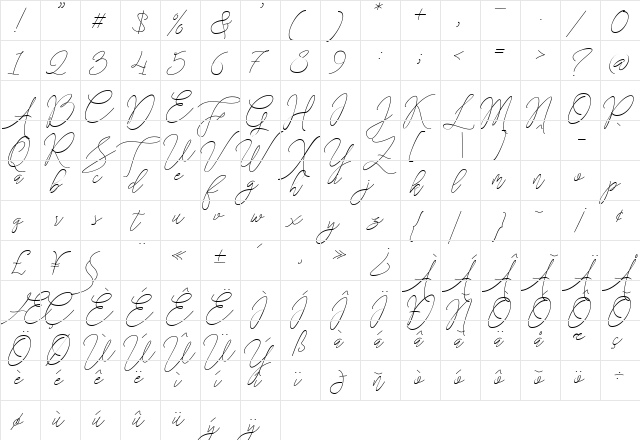
Stringlight Regular
| Foundry | Riverside Digital Type Foundry |
| Designer | Riverside Digital Type Foundry |
Design Context for Stringlight Typeface
Stringlight is a composed and adaptable typeface that performs quietly and consistently across a wide range of design contexts. Its slender proportions lend an understated elegance to any composition.